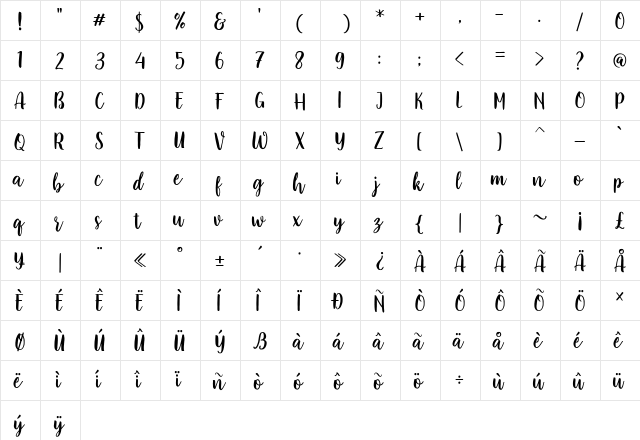
Faradisa Script Regular
Design Context for Faradisa Script Typeface
Faradisa Script flows with the natural rhythm of handwritten lettering, making it ideal for designs that call for warmth and personal expression.
Font Pairing: Combine Faradisa Script with a simple geometric sans for maximum contrast — the tension between flowing curves and clean structure is a classic typographic pairing.
Pro Tip: Pair Faradisa Script with a clean sans-serif for supporting text. The contrast between fluid script and geometric structure creates an elegant typographic hierarchy.